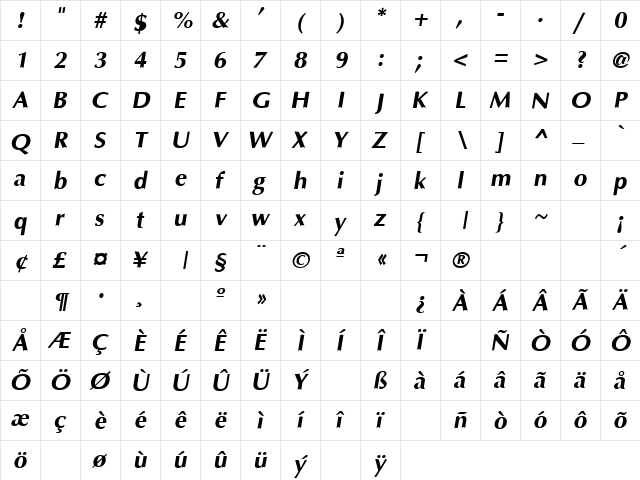
Optimal Bold-Oblique
Design Context for Optimal Typeface
Optimal is a composed and adaptable typeface that performs quietly and consistently across a wide range of design contexts. The slanted form adds forward momentum and visual energy. The heavy weight commands attention and anchors typographic hierarchies.
Pro Tip: Try Optimal for annotation and caption copy alongside an upright companion — the contrast in angle creates a dynamic but ordered typographic system.